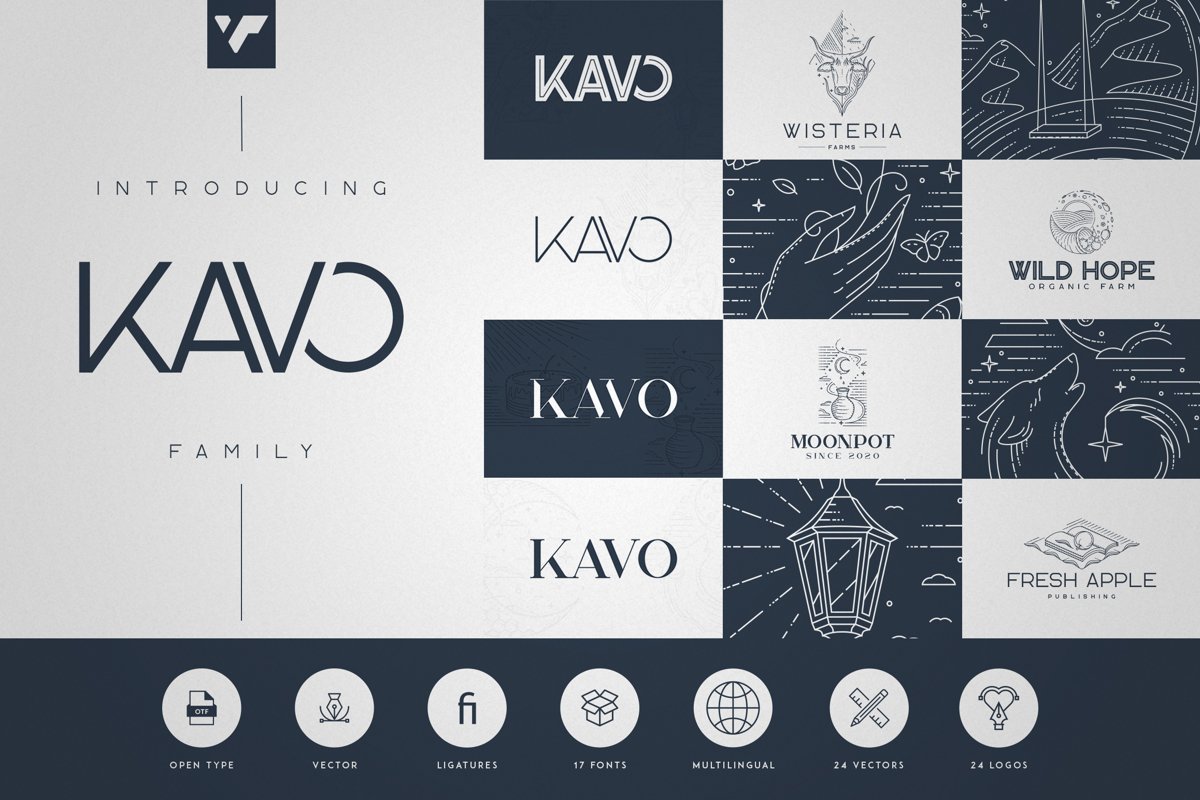
Kavo Family - 17 fonts 24 logos
Introducing Kavo Family - 17 fonts + 24 logo templates
Kavo is clean, modern family with 17 fonts, 24 awesome vector designs, 24 logo templates and multilingual support.
It's a very versatile font that works great in large and small sizes.
Kavo styled serif is perfect for branding projects, home-ware designs, product packaging, magazine headers - or simply as a stylish text overlay to any background image.
• Uppercase, numeral, punctuation & Symbol
• Sans serif - light, regular, bold, black
• Inline - regular, bold, black
• Serif - hairline, light, regular, bold, black
• Serif Styled - hairline, light, regular, bold, black